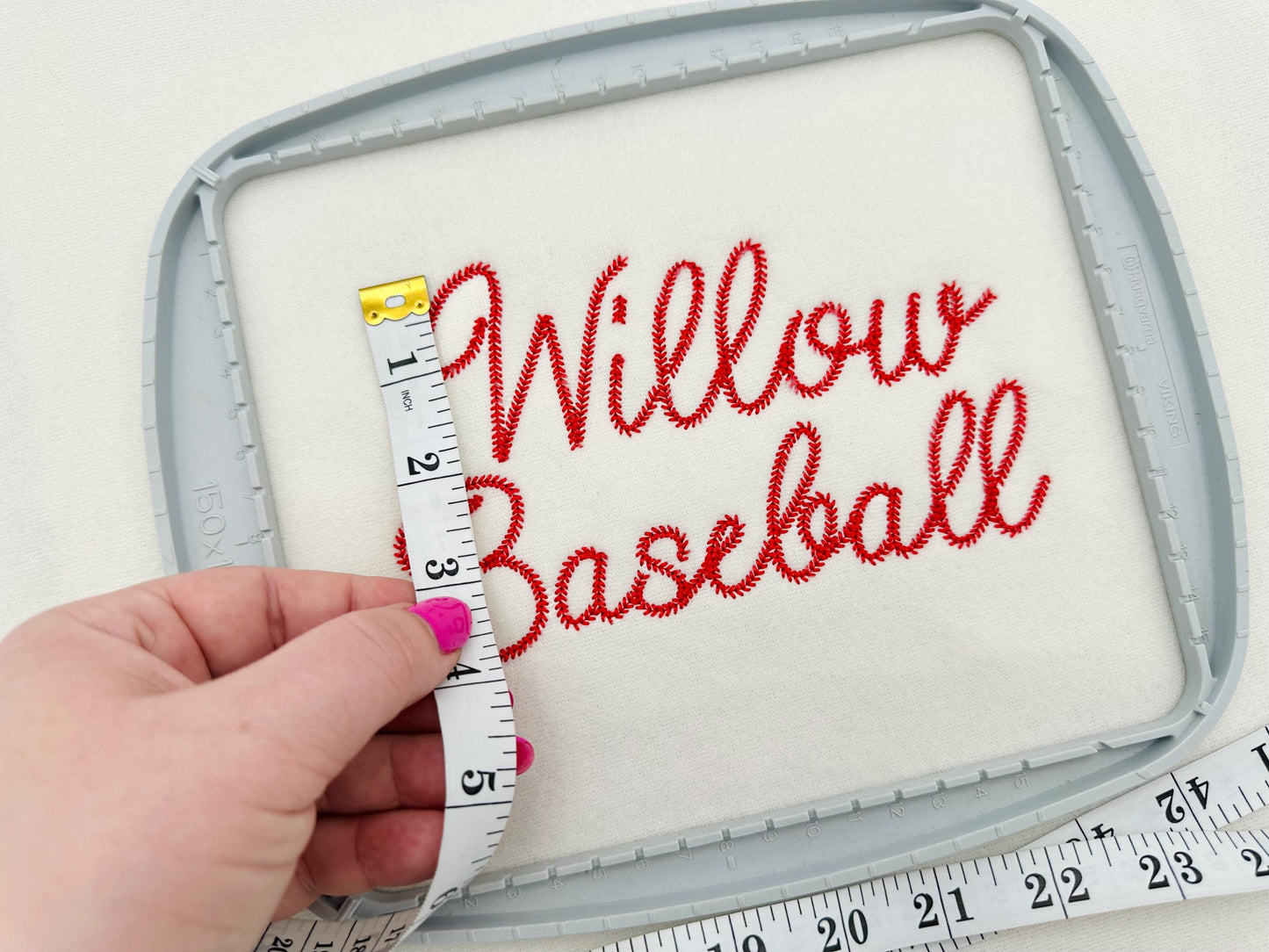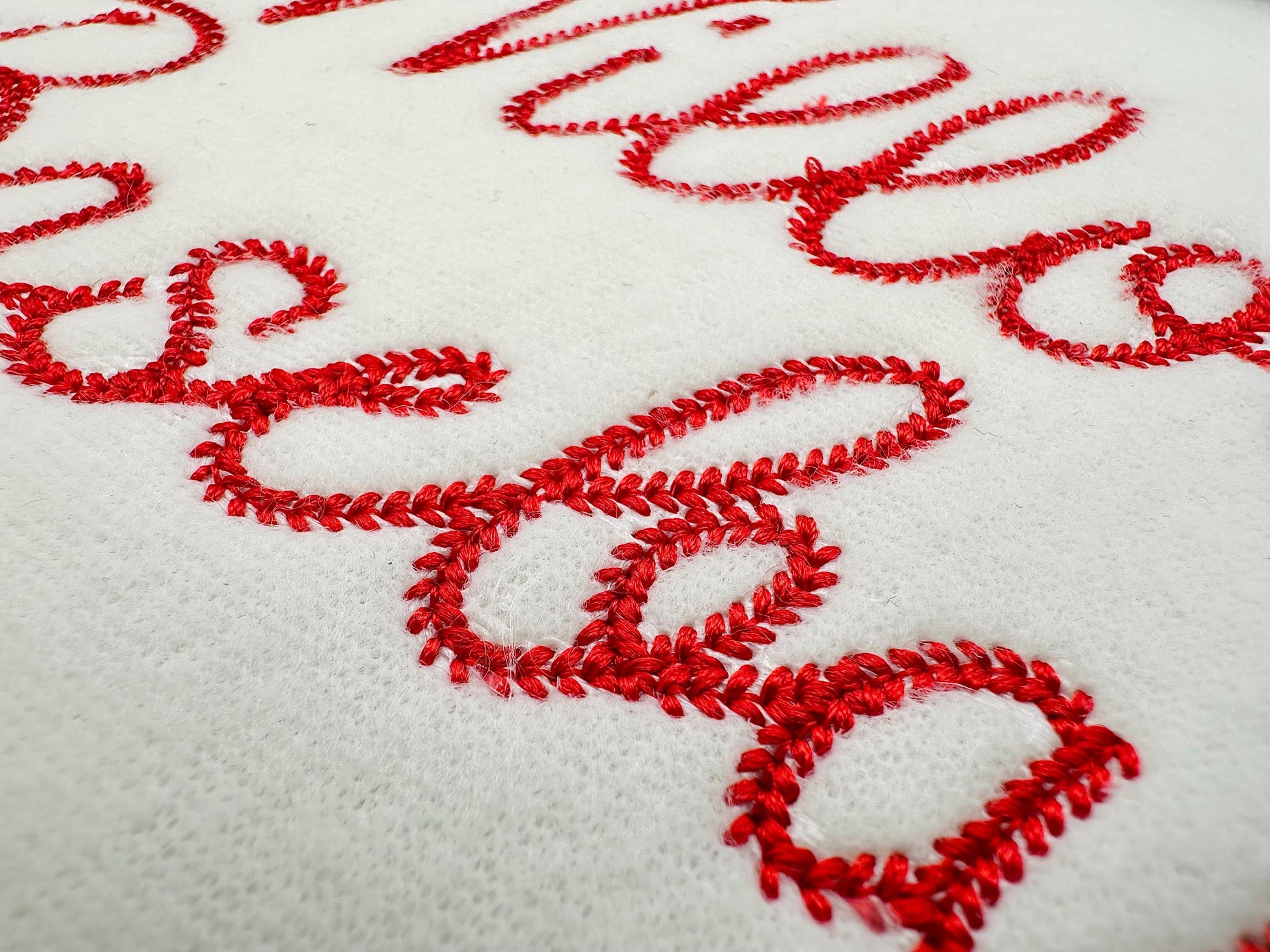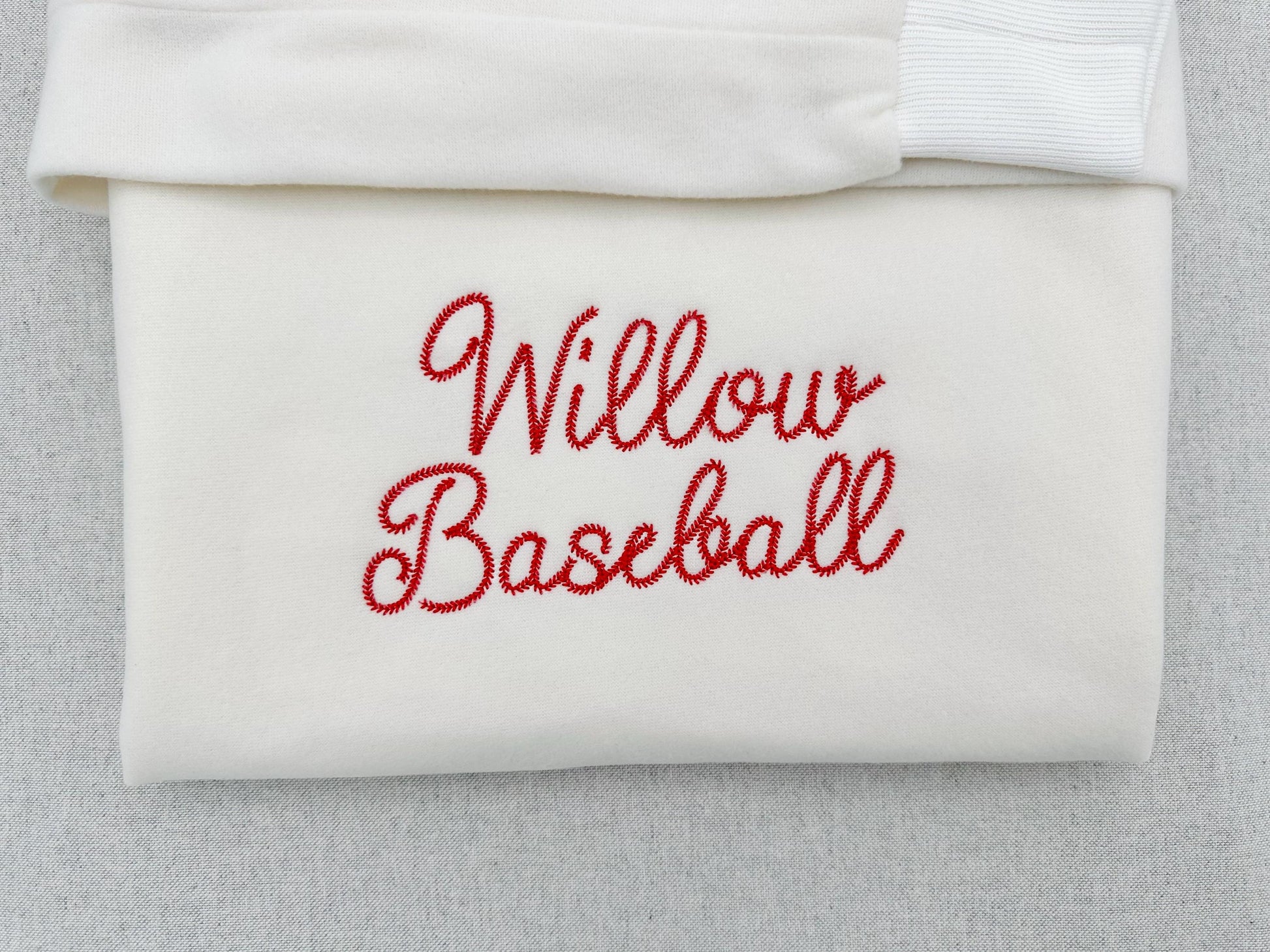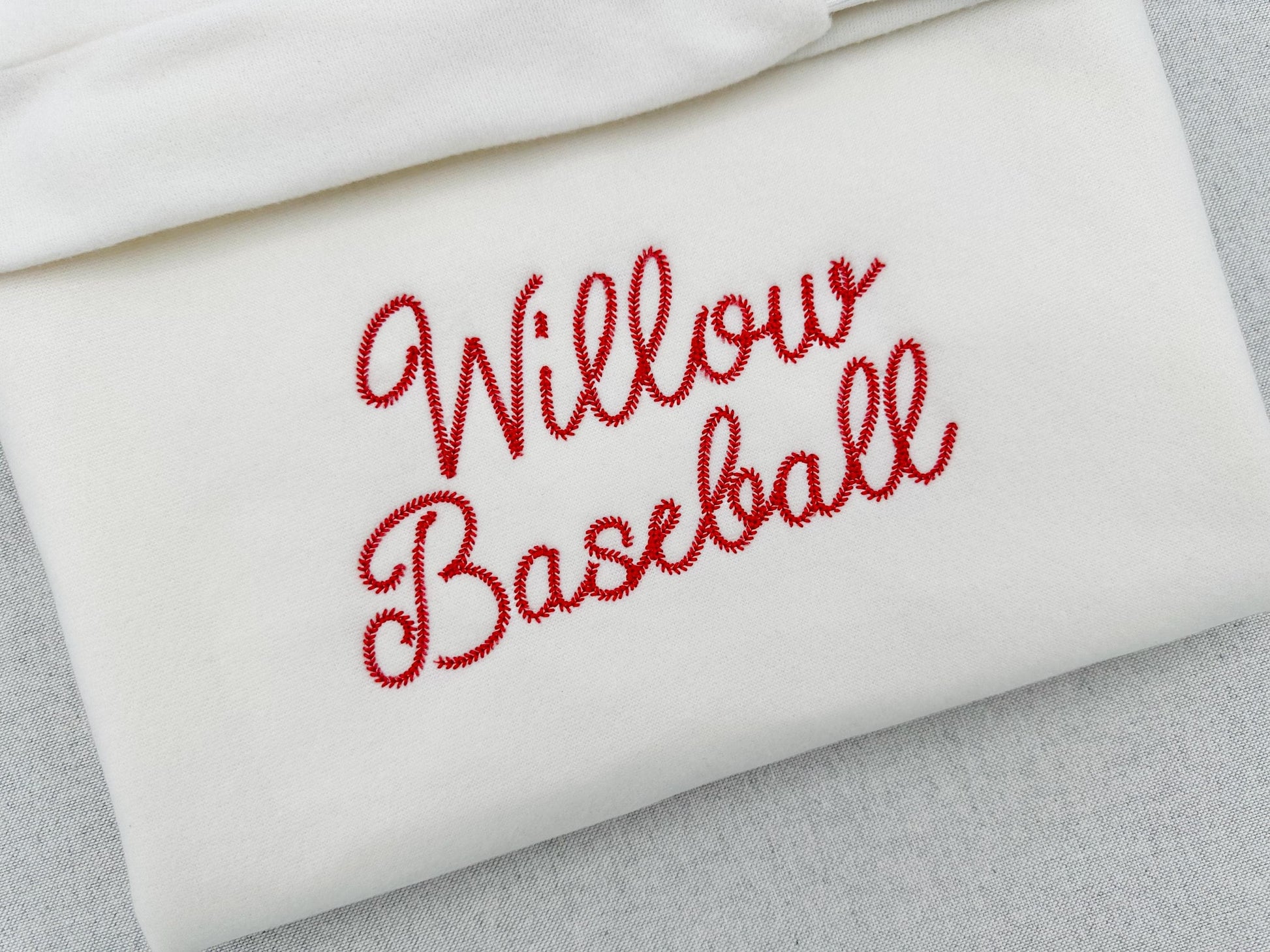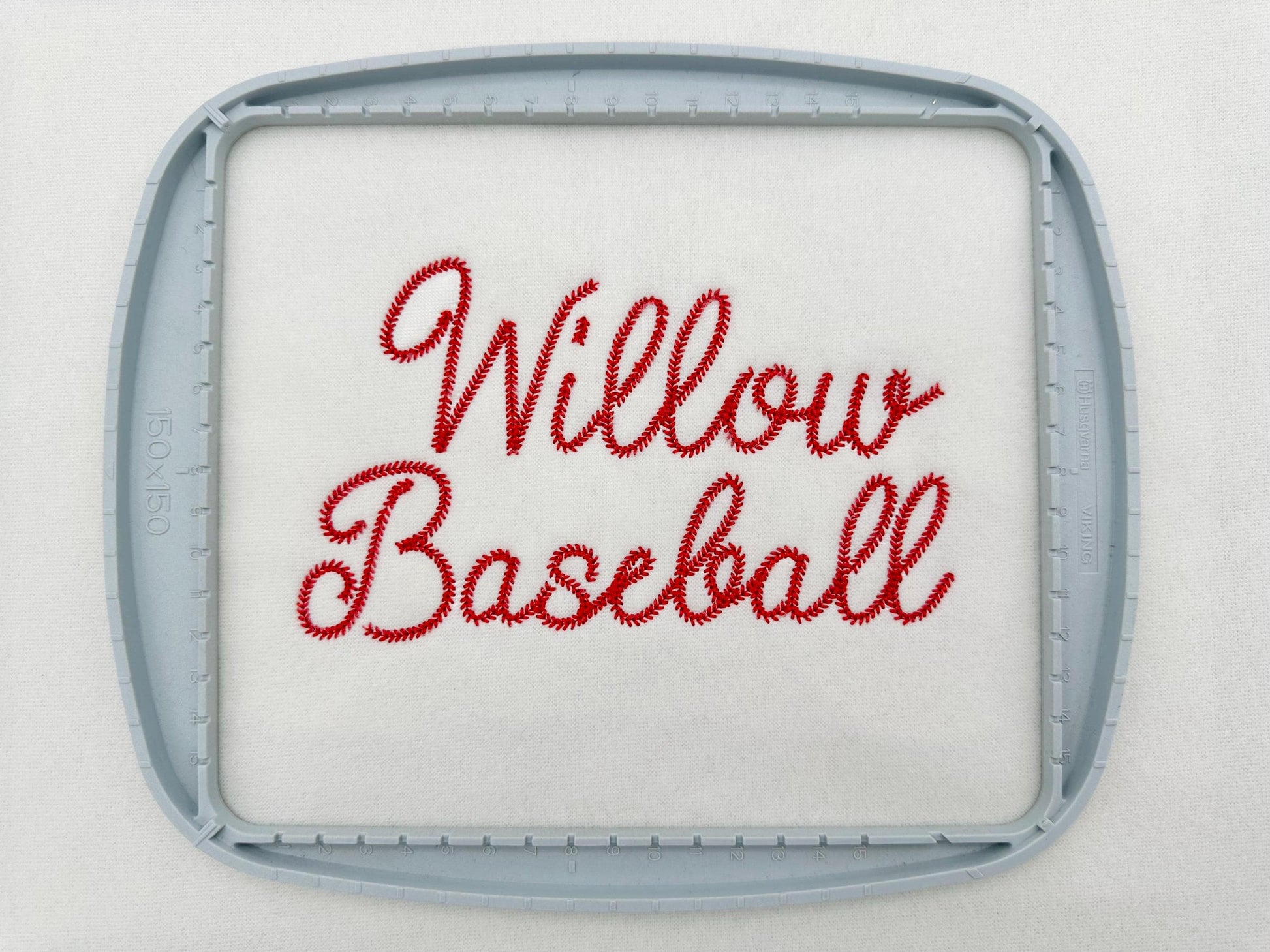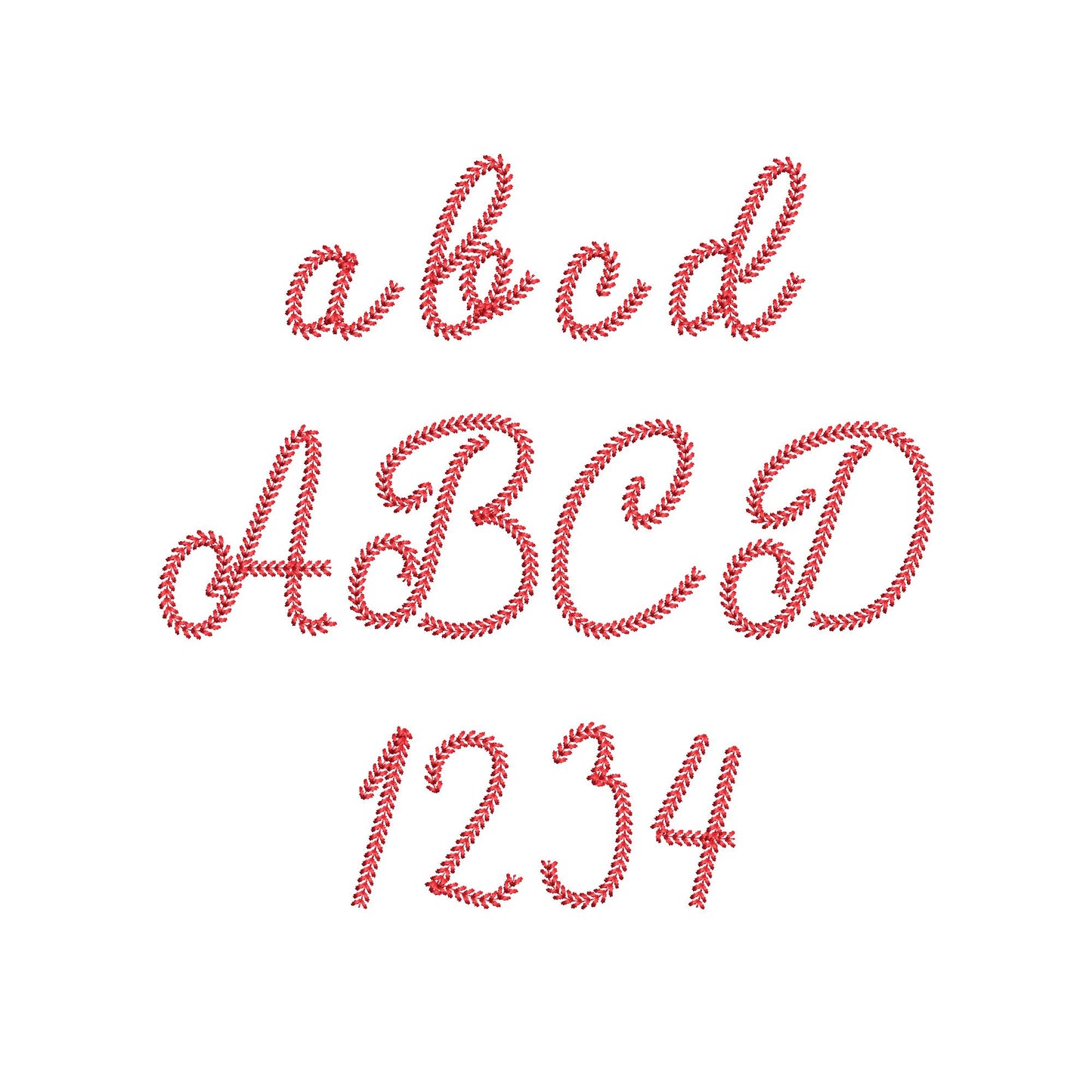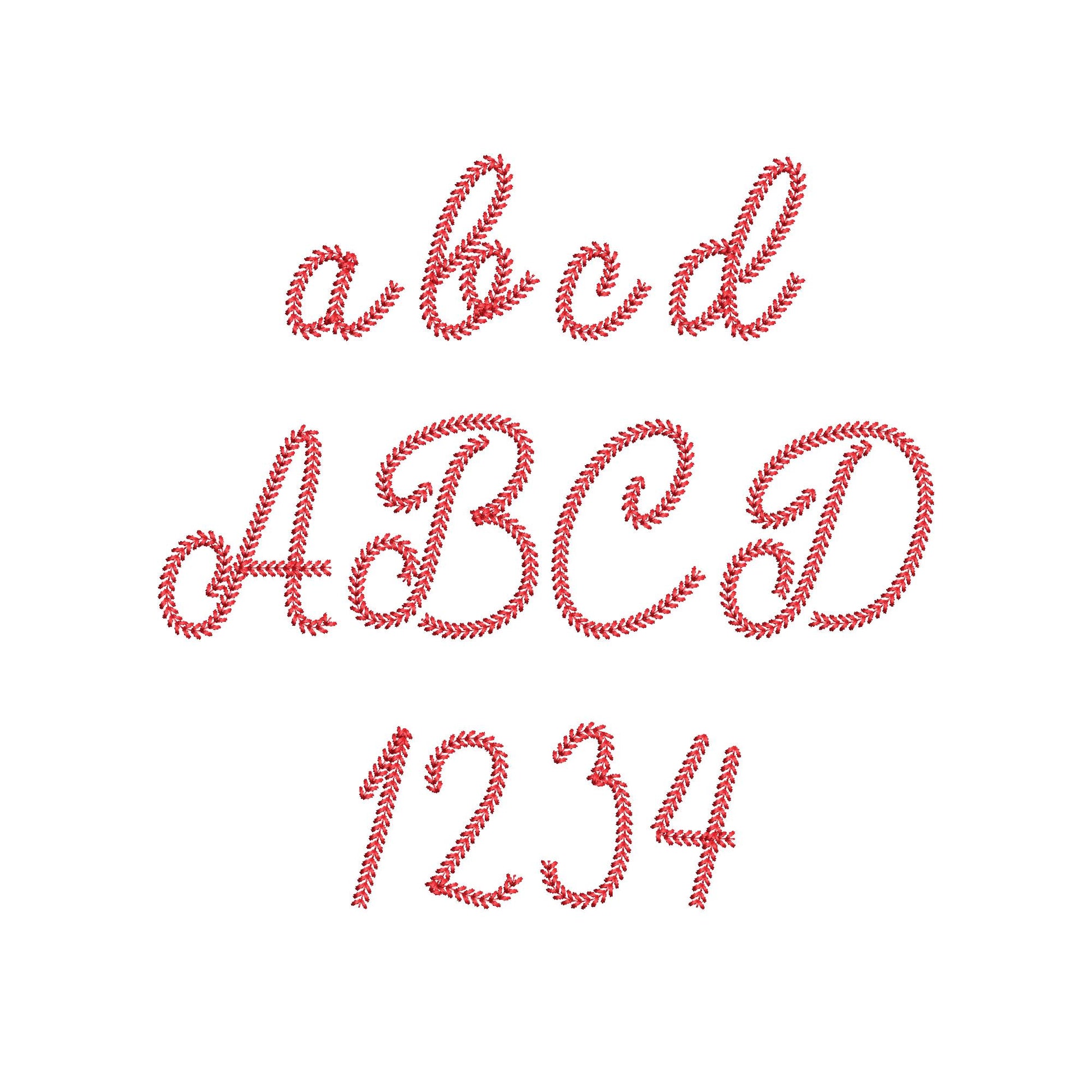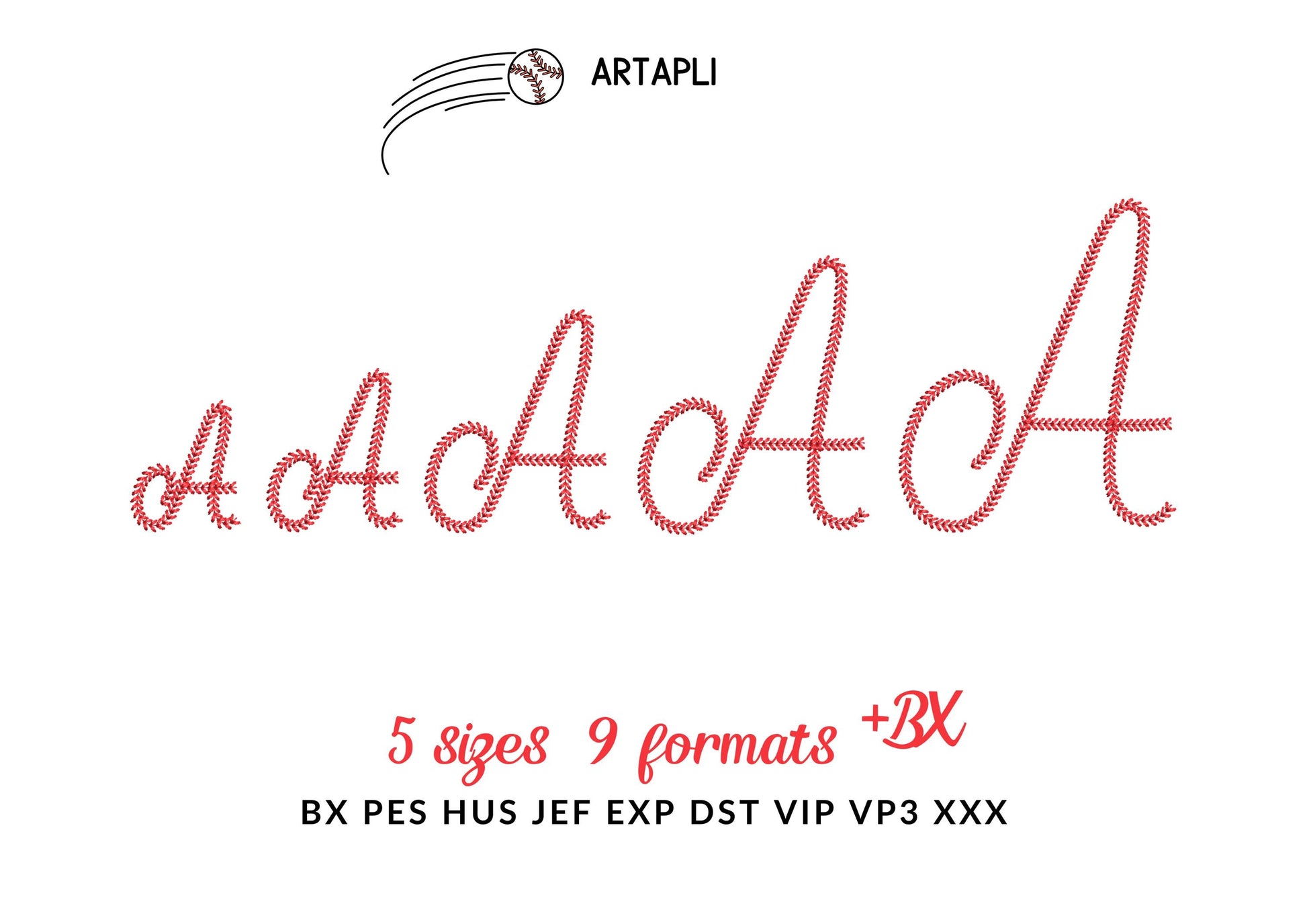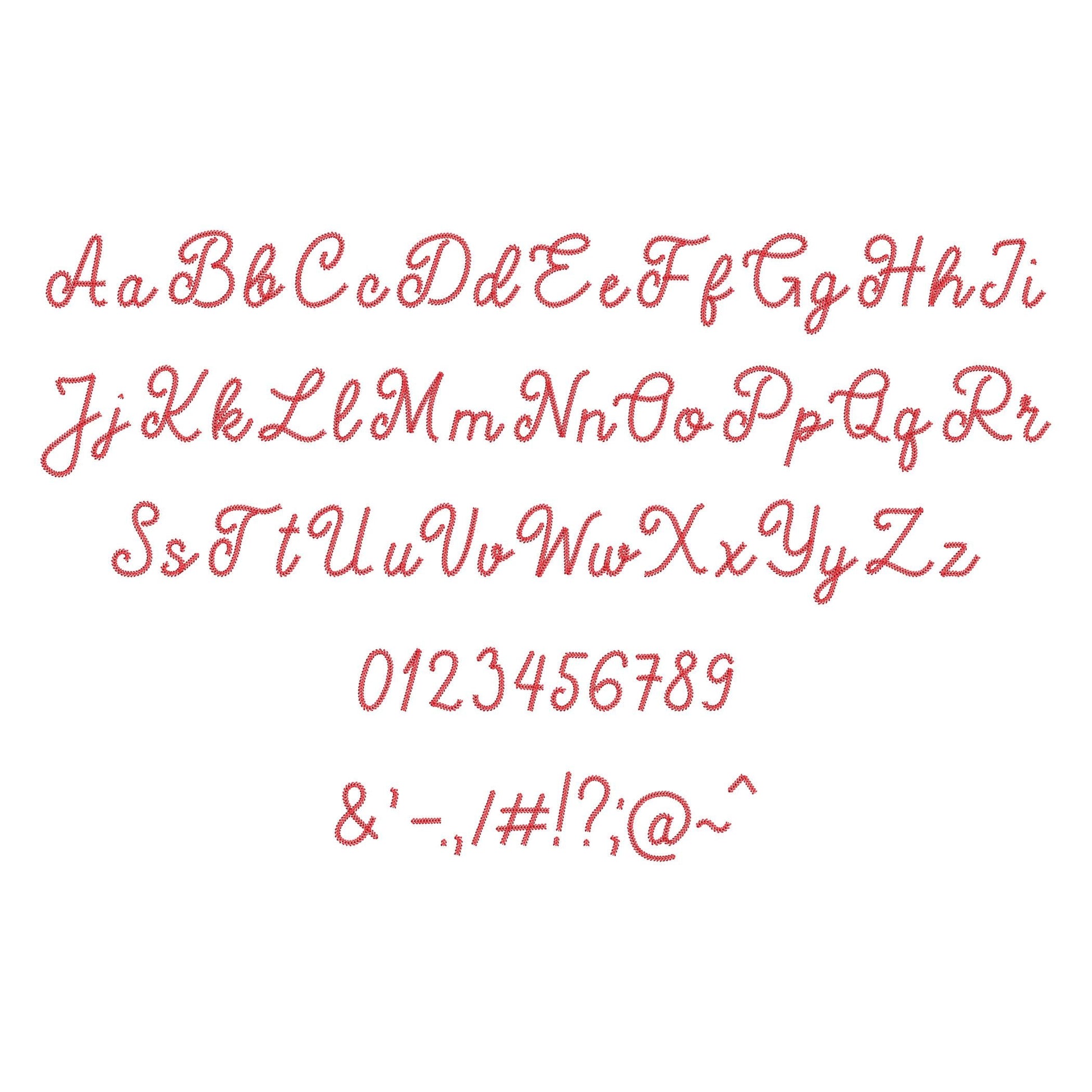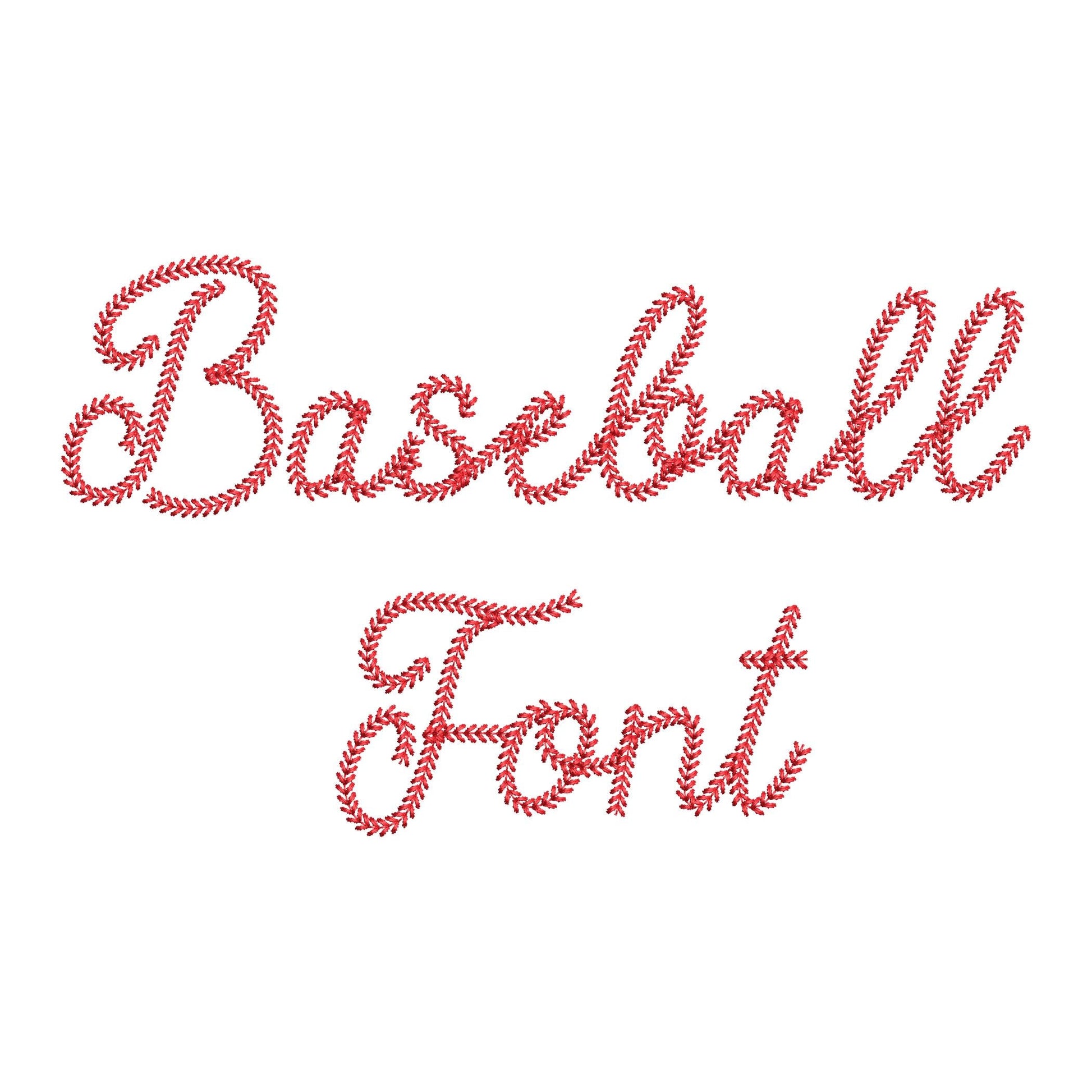
Handwritten Baseball Font
Or click to open the linkA handwritten script font in baseball stitch, like the seams on a ball. Great for team names, jerseys, caps, bags and sports gifts.
Five sizes: 1.8, 2.2, 3, 3.7 and 4.4 inches. The alphabet has uppercase and lowercase letters A-Z, numbers 0-9 and punctuation.
- Baseball stitch script alphabet, uppercase and lowercase A-Z
- Numbers 0-9 and punctuation
- 5 sizes, 1.8 to 4.4 in